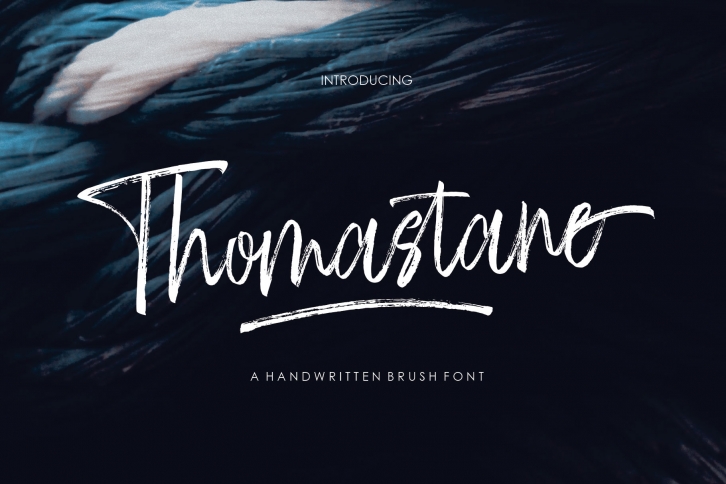
Thomastane Font Download
Thomastane is a beautiful font that was designed by Jhoel Design. It's a great choice for designers and creatives who need such a font. It was released on December 20, 2019 and the file size is 20.4 MB. Thomastane may give a more youthful, expressive and casual look to your project. It is a very beautiful, refined, elegant, and high-quality font.